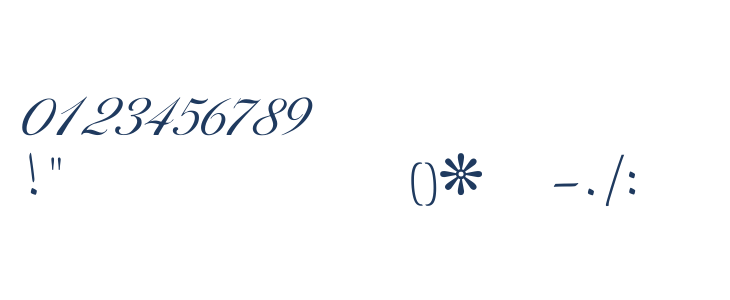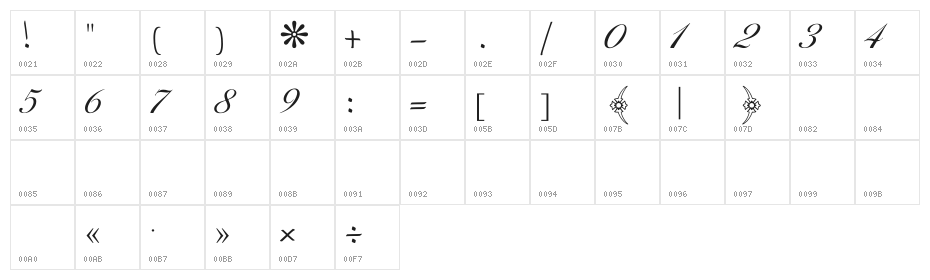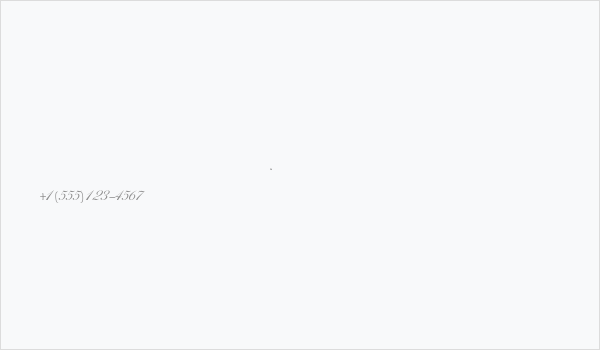
Sols Ketaabat Font
Sols Ketaabat Description
This font exudes elegance and sophistication with its flowing, cursive style. The characters are gracefully connected, featuring smooth curves and delicate strokes that give it a refined appearance. The numerals maintain a consistent style with the letters, offering a cohesive look. The special characters are designed with the same attention to detail, ensuring they blend seamlessly with the rest of the font. Its overall aesthetic is reminiscent of traditional calligraphy, making it suitable for projects that require a touch of class and formality.
Overall StyleClassic
Use CaseLogos, Invitations, Decorative text
Proposed ProjectsIdeal for wedding invitations, formal event programs, elegant branding, and high-end product packaging.